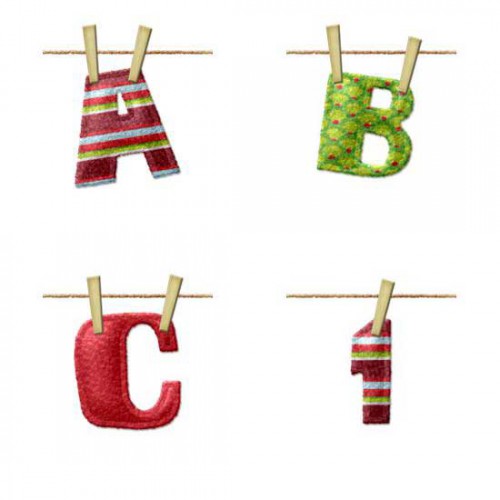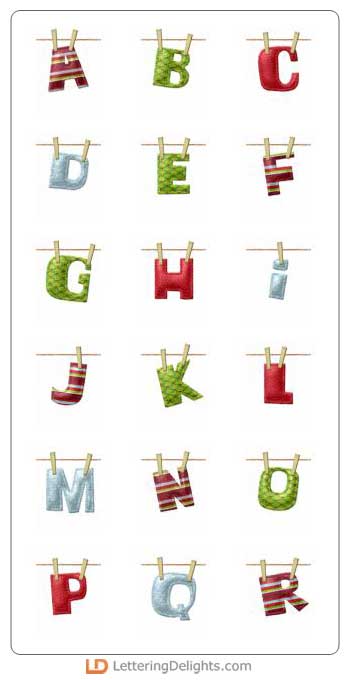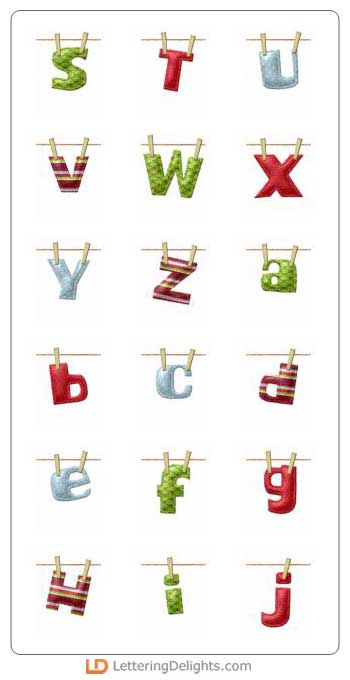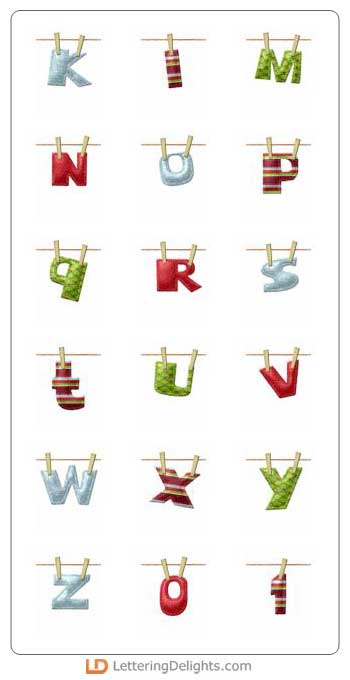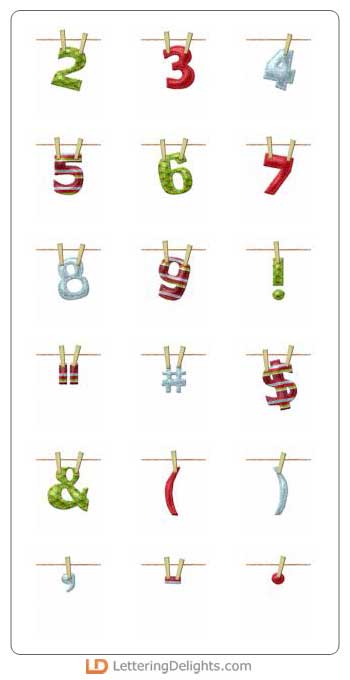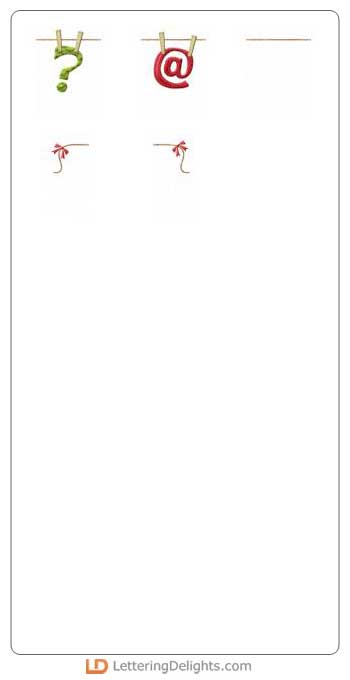
When you've got a holiday message to send, why not hang it out on the line? This fun alphabet is perfectly matched to create a fun clothesline effect (because even Santa has to do a bit of laundry!). The underscore character adds a bit of 'empty' clothes line, while the right and left brackets will give you the perfect beginning and ending to your message.